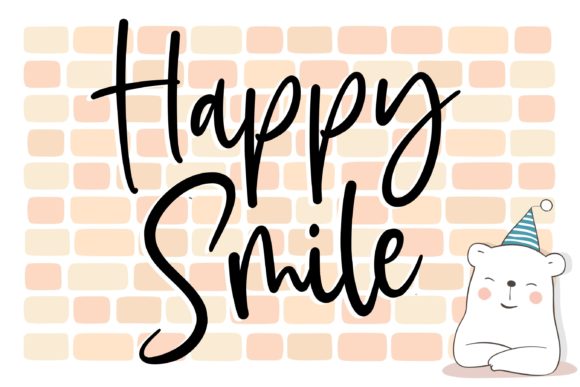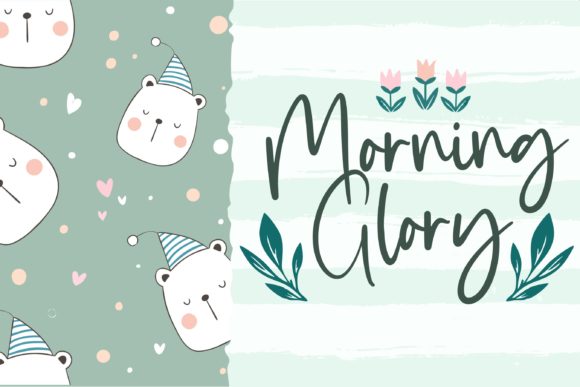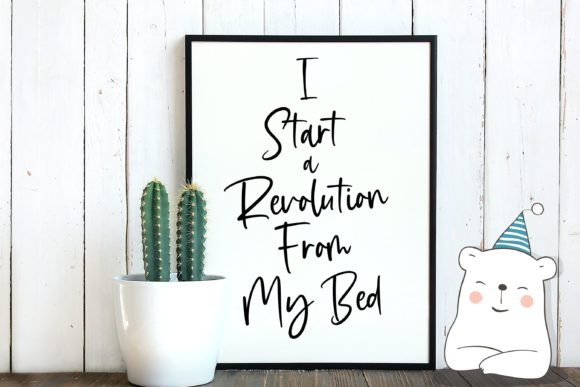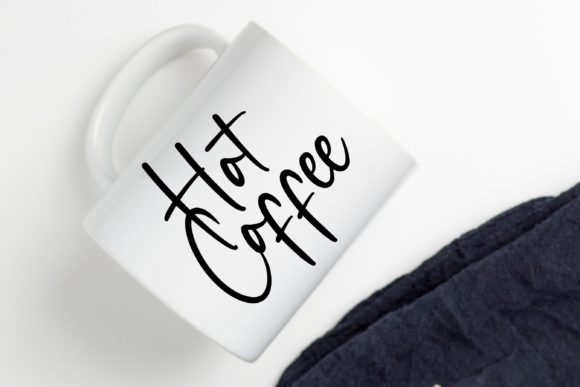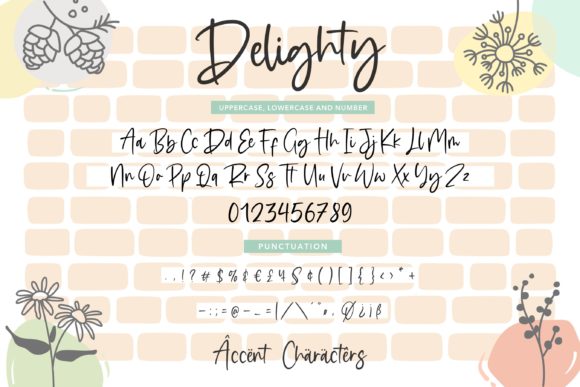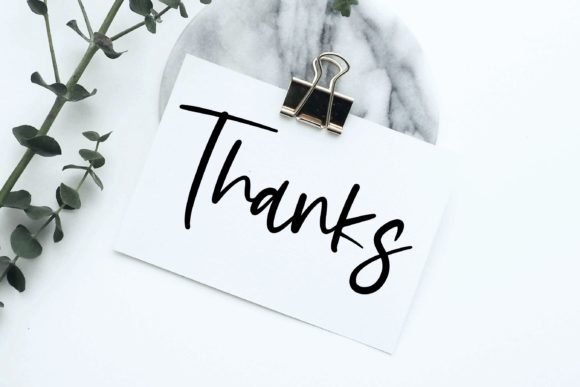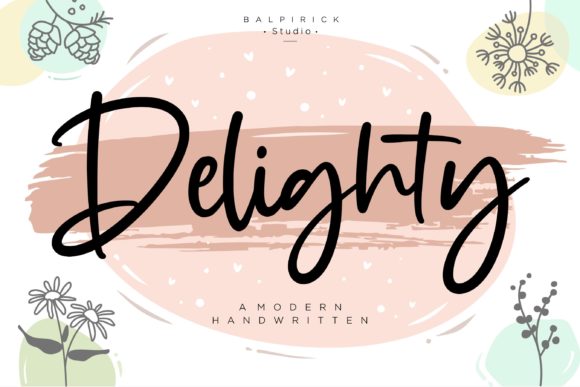
Introducing Delighty Font: Elevate Your Creativity with Elegance
Are you a designer, crafty DIY enthusiast, or social media influencer looking for the perfect font to elevate your creative projects? Look no further than Delighty Font, a magical handwritten font that combines elegance with a touch of whimsy. In this article, we’ll dive into the world of Delighty, exploring its features, uses, and benefits for creatives.
What is Delighty Font?
Delighty is a carefully crafted handwritten font, designed to bring a touch of sophistication and charm to any creative project. With its flowing lines and delicate curves, this font is perfect for adding a personal touch to your designs, whether you’re working on a DIY project, creating engaging Instagram content, or crafting beautiful calligraphy scripts.
The Magic of Delighty
So, what makes Delighty Font so special? Here are just a few features that set it apart:
- Elegant and Refined: Delighty’s elegant lines and curves give it a sophisticated feel, perfect for high-end designs or special occasions.
- Handwritten with Love: This font is carefully crafted with a personal touch, giving it a unique and human feel that’s hard to replicate with generic fonts.
- Versatile: Delighty is suitable for a wide range of creative projects, from social media graphics to DIY crafts, and even professional designs.
- Easy to Read: Despite its elegant nature, Delighty is surprisingly easy to read, making it perfect for longer texts or captions.
Uses for Delighty Font
Delighty’s versatility makes it an excellent choice for various creative projects. Here are some ideas to get you started:
- Instagram Graphics: Elevate your Instagram feed with Delighty’s elegant and eye-catching font. Use it for quotes, captions, or even Instagram stories.
- DIY Projects: Add a personal touch to your DIY crafts, such as handmade cards, gift tags, or scrapbooking pages.
- Calligraphy Scripts: Use Delighty as a foundation for beautiful calligraphy scripts, perfect for special occasions or events.
- Branding and Packaging: Delighty’s unique feel makes it an excellent choice for branding and packaging designs, helping your business stand out from the crowd.
Delighty Font offers numerous benefits for designers and crafters, including:
- Time-Saving: With Delighty, you can quickly create stunning designs without spending hours on font selection or customization.
- Consistency: Use Delighty across multiple projects to maintain a consistent visual brand and aesthetic.
- Inspiration: Delighty’s unique feel can inspire new creative ideas and help you explore different design styles.
Delighty Font is a magical handwritten font that can elevate your creative projects with its elegant and refined feel. Whether you’re a designer, DIY enthusiast, or social media influencer, this font offers a world of possibilities for adding a personal touch to your work. With its versatility, ease of use, and inspiring design, Delighty is sure to become a favorite in your creative toolkit.